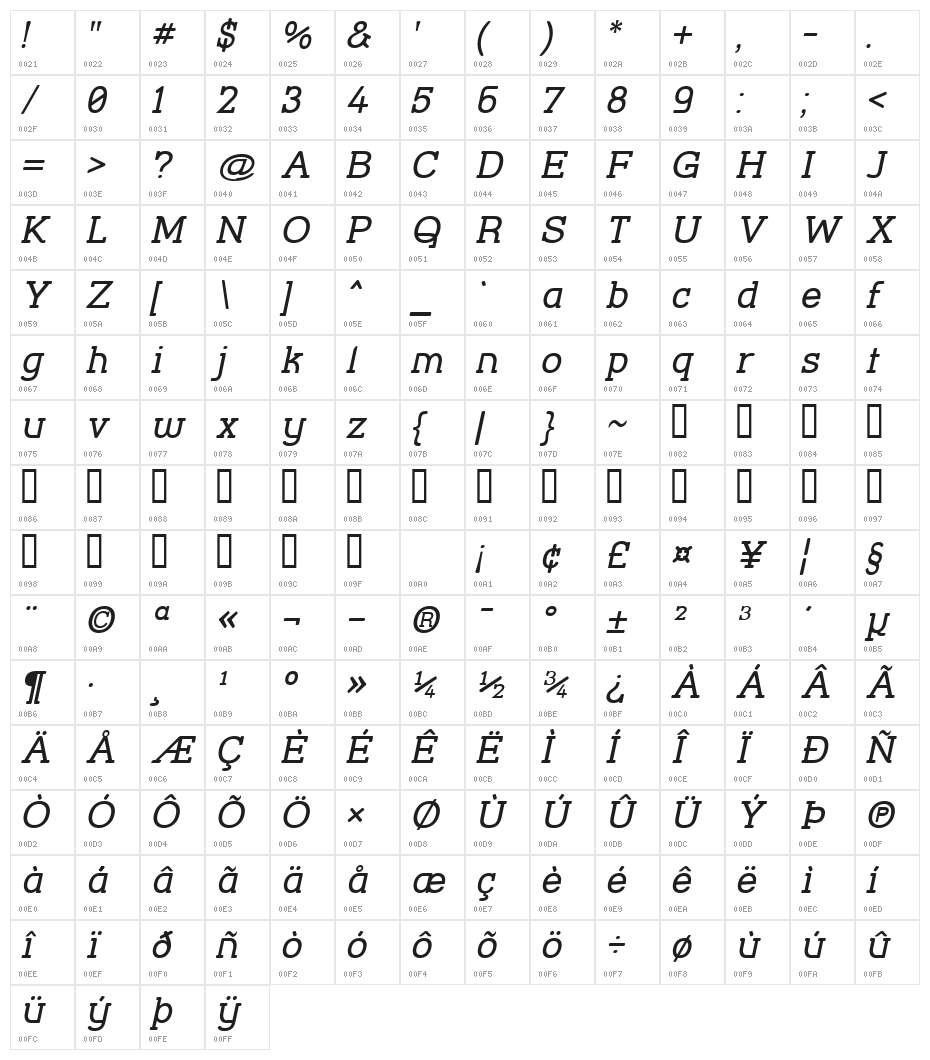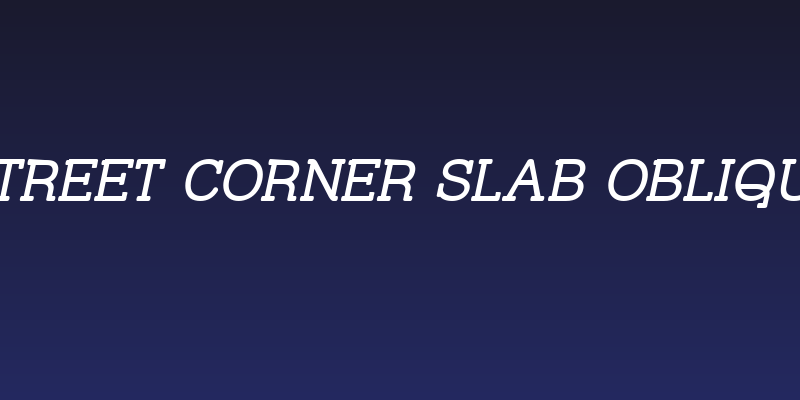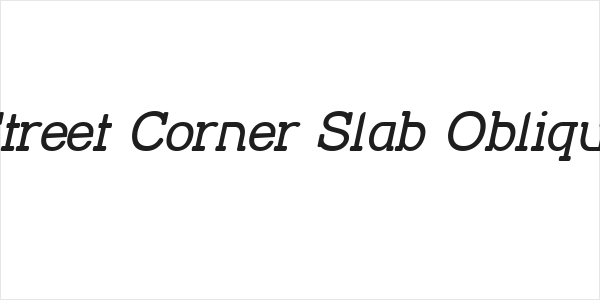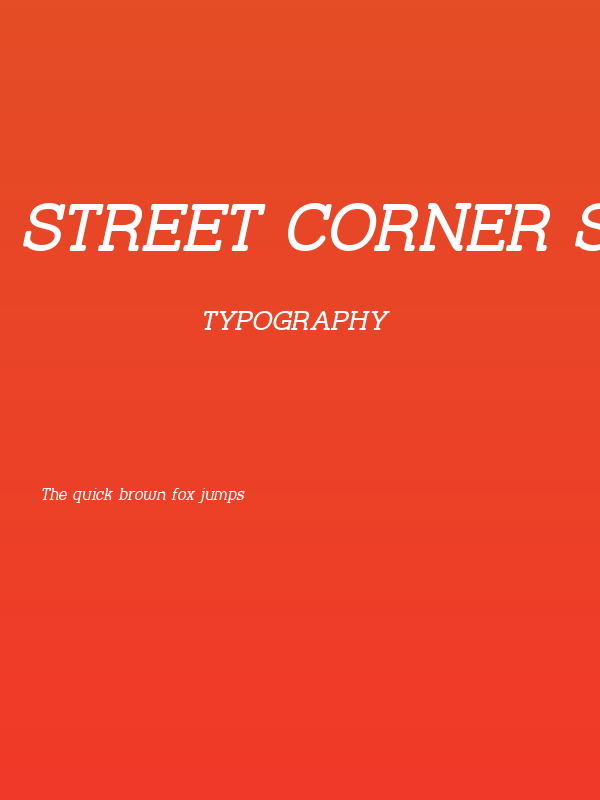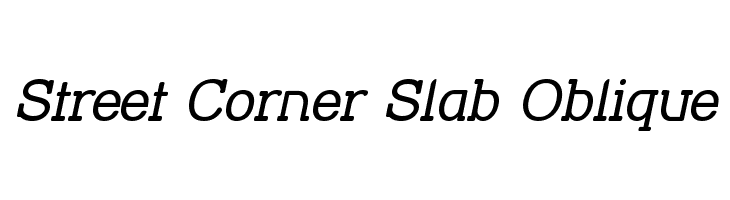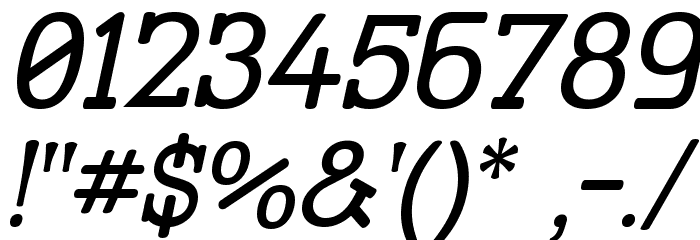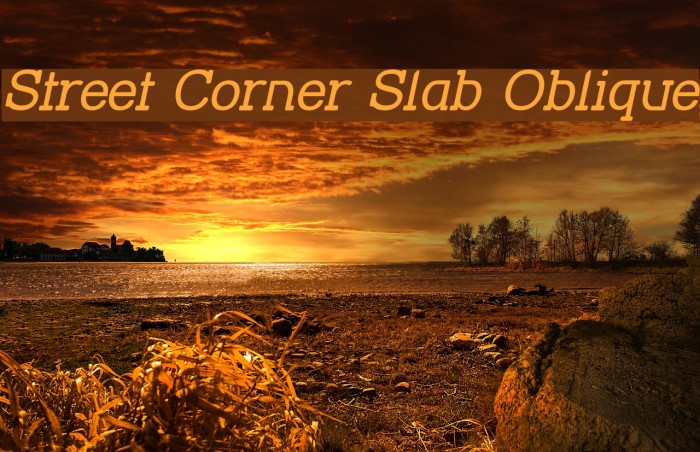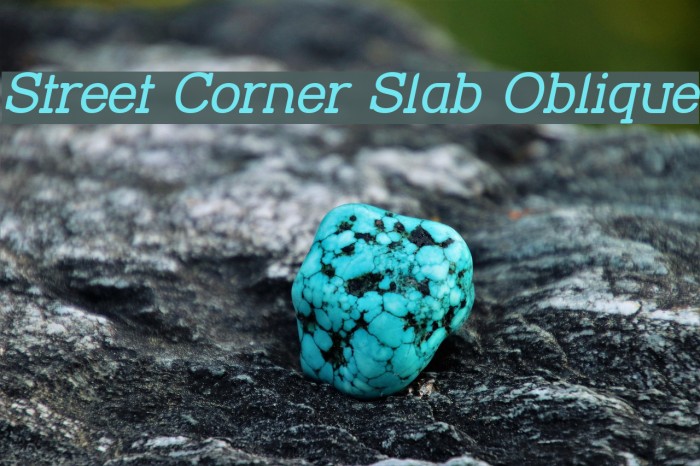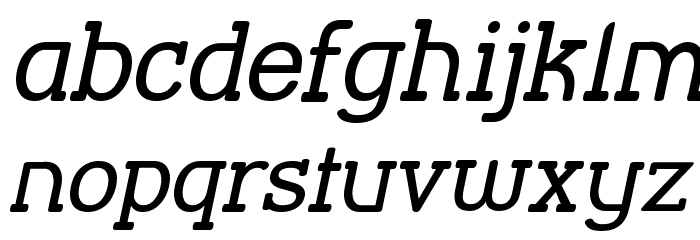
Street Corner Slab Oblique Font
Street Corner Slab Oblique Description
This font features a distinctive oblique style with slab serif characteristics. The uppercase and lowercase letters exhibit a consistent slant, giving the typeface a dynamic and forward-moving appearance. The serifs are prominent and block-like, adding a sense of stability and strength to the characters. The numerals are designed with the same oblique slant, maintaining uniformity across the character set. Special characters are well-integrated, ensuring versatility in various design contexts. The overall design balances readability with a unique stylistic flair, making it suitable for both modern and traditional applications.
| Proposed Projects | Ideal for branding, headlines, posters, and signage where a bold statement is needed. |